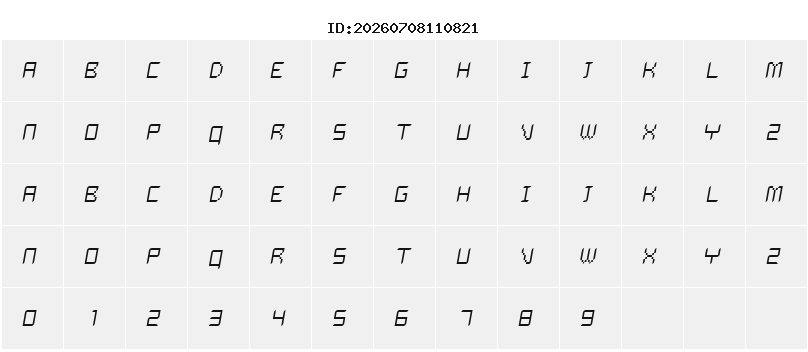
Dalila Light Oblique Preview
• Font Name: Dalila Light Oblique
• Font ID: Meir Sadan Dalila Light Oblique
• Full Font Name: Dalila Light Oblique
• PostScript Name: DalilaLightOblique
About Dalila Light Oblique.ttf
Dalila Light Oblique.ttf is a modern, elegant sans-serif font designed for ultimate readability and visual harmony. Perfect for branding, headlines, web design, and print materials.